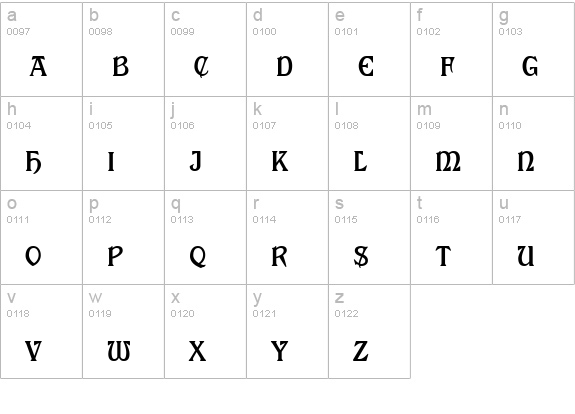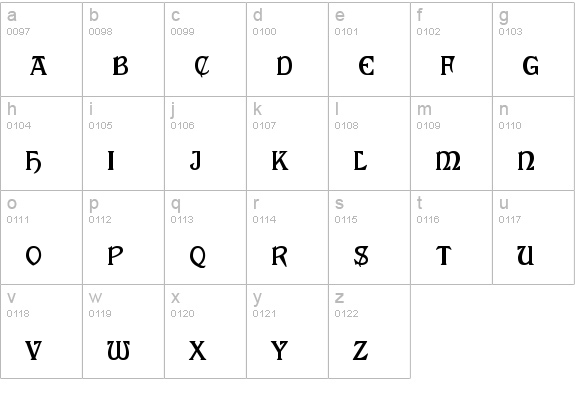
Roosevelt Font Details
Roosevelt font is a bold and elegant typeface that exudes sophistication and charm. With its unique blend of vintage and modern design elements, this font is perfect for adding a touch of class to any project. Whether you're designing a logo, poster, or invitation, Roosevelt font will make your text stand out and leave a lasting impression. Best of all, Roosevelt font is completely free to download at FontsMarket.com. Embrace the beauty and versatility of this stunning typeface without breaking the bank. Download Roosevelt font today and elevate your design to new heights.